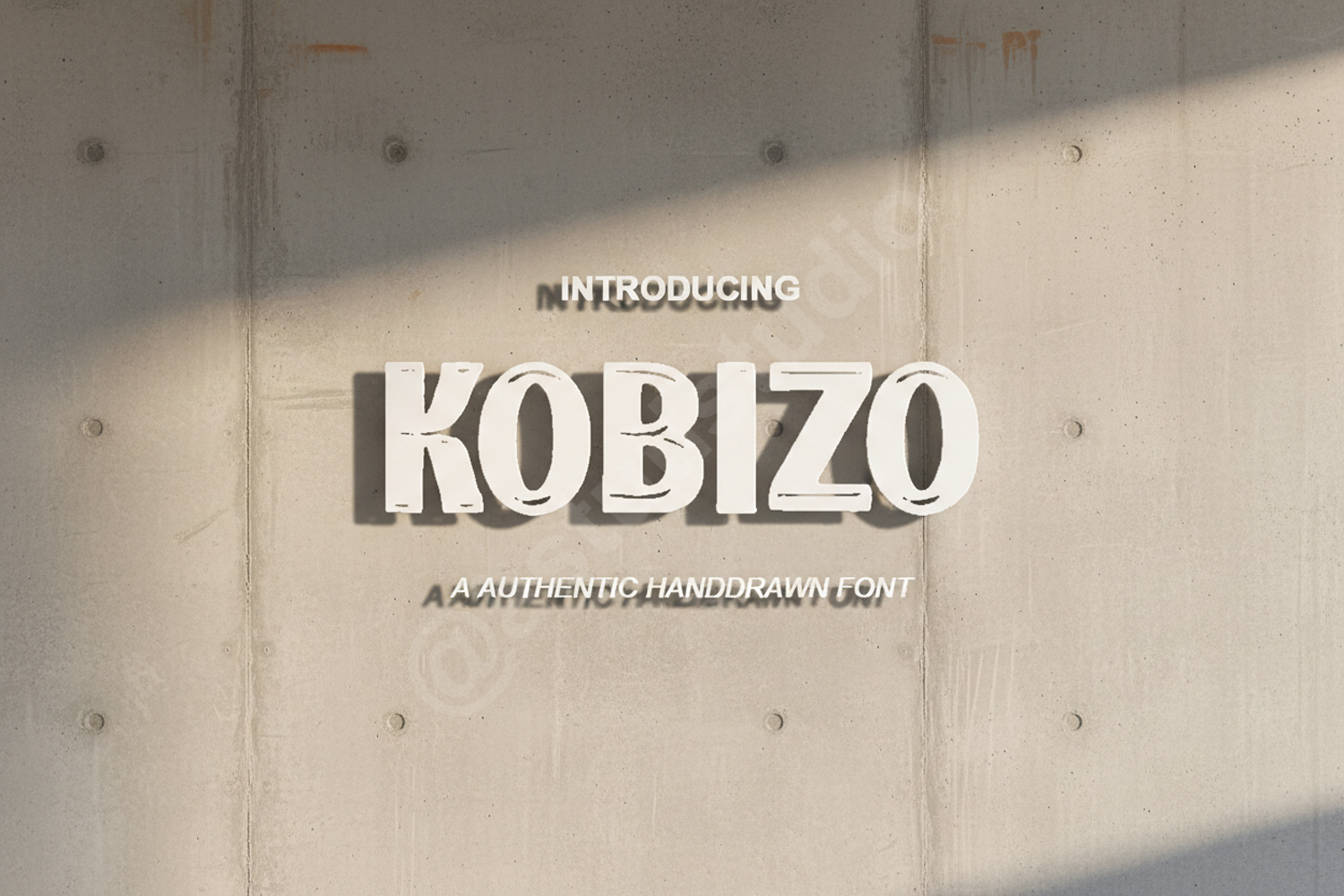
Kobizo - Modern Geometric Sans Serif Typeface
Kobizo
Kobizo is a premium geometric sans serif typeface that blends contemporary aesthetics with exceptional legibility. Designed for creators who demand precision, Kobizo offers a clean and sophisticated look that elevates any creative project. Whether you are building a brand from scratch or refining a high-end publication, this font provides the versatility and professional edge required for modern design.
- Comprehensive Multilingual Support
- Standard Ligatures and Precise Kerning
- Branding and Visual Identity: Perfect for iconic logos, business cards, and corporate stationery.
- Editorial Design: Ideal for magazine layouts, bold headers, and clean body text.
- Digital Marketing: Optimized for high-impact social media graphics and professional web banners.
- Product Packaging: Clean lines that stand out on luxury labels and minimalist boxes.
- Architectural Presentations: A go-to choice for sleek posters and technical layouts.